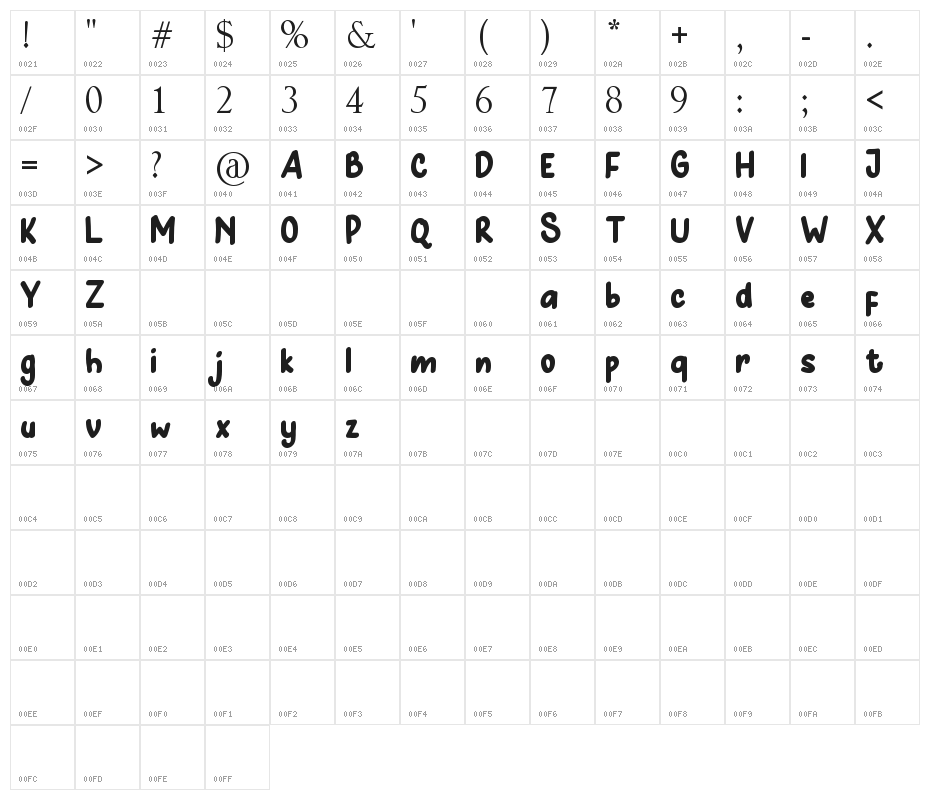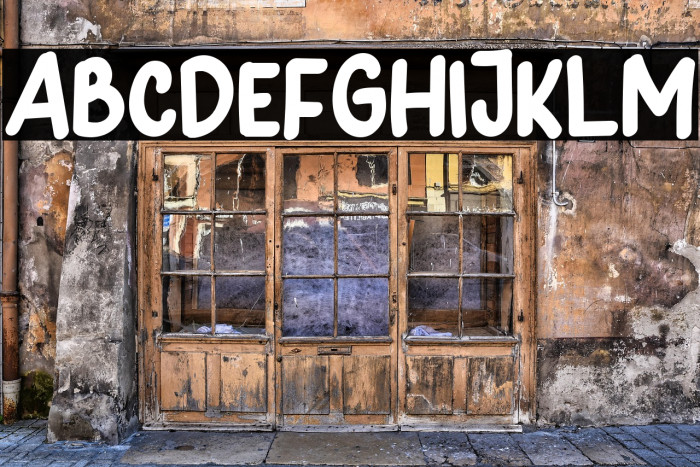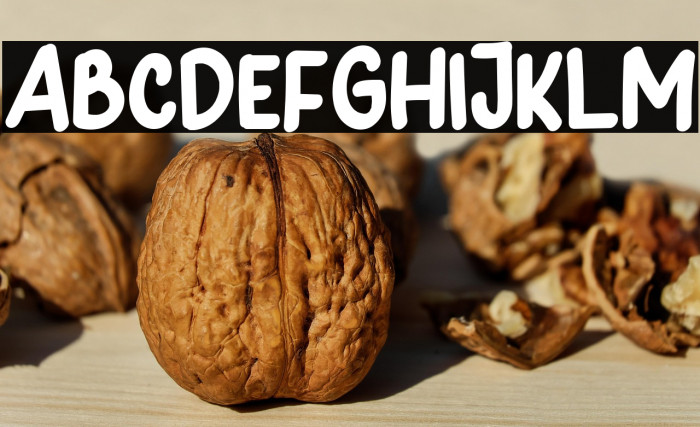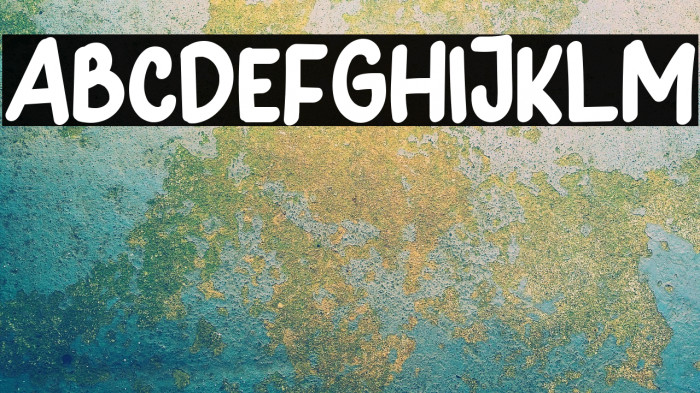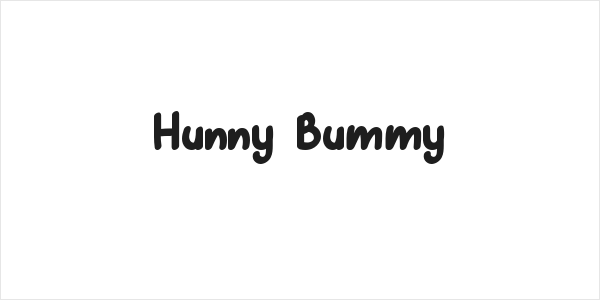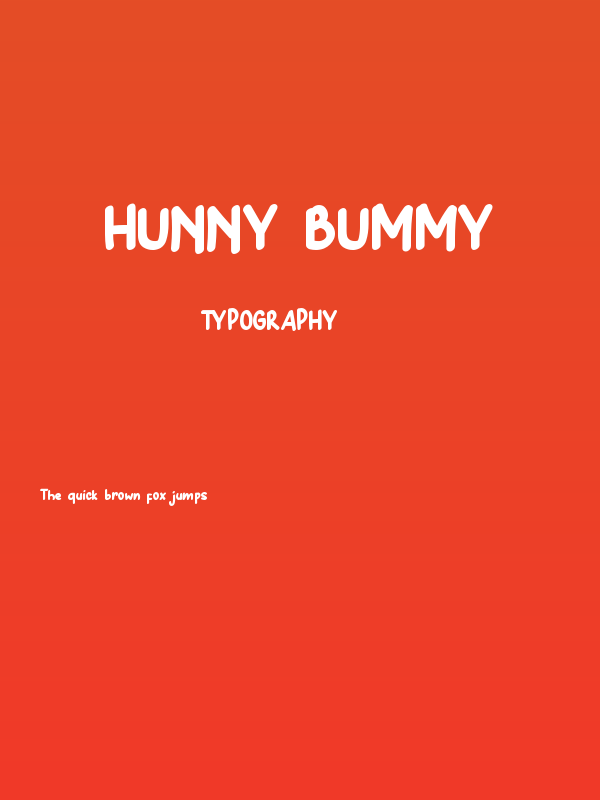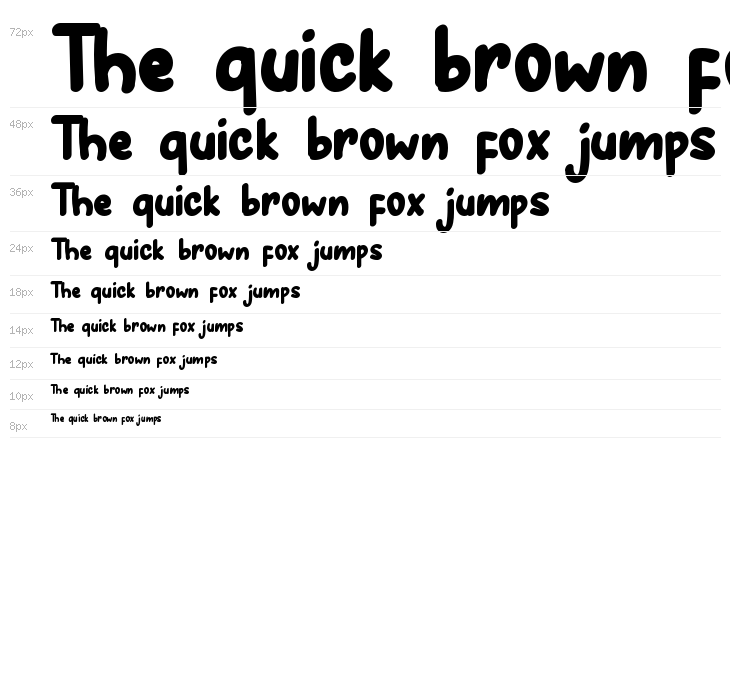
Hunny Bummy Font
Hunny Bummy Description
This playful and whimsical font features bold, rounded characters with a hand-drawn feel. The uppercase letters are slightly larger and more pronounced, while the lowercase letters maintain a consistent, friendly appearance. The numbers are clear and easy to read, complementing the overall style. Special characters are creatively designed, adding to the font's charm. The font's informal and approachable nature makes it ideal for projects that require a fun and engaging look.
| Proposed Projects | Ideal for children's books, playful branding, greeting cards, and casual invitations. |